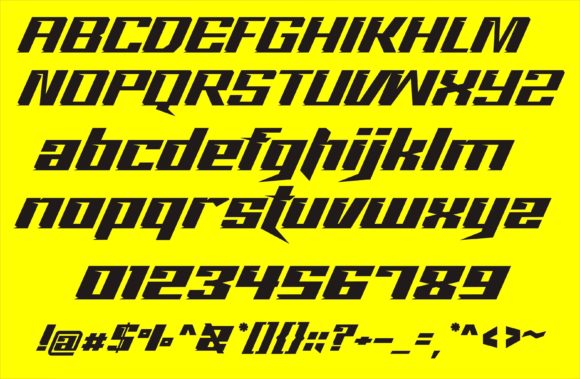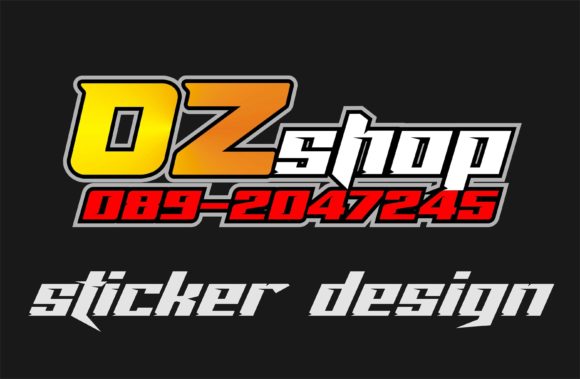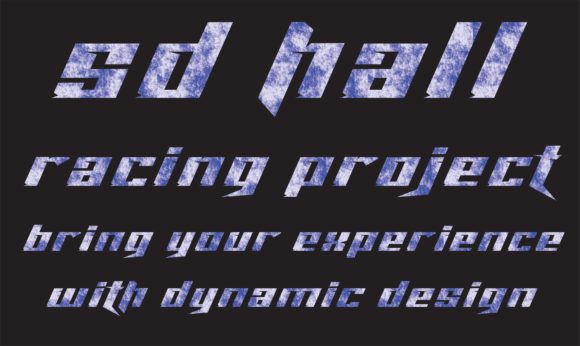
Introduction to Sd Hall Font
Have you ever found yourself staring at a blank canvas, eager to bring a creative project to life, but struggling to find the perfect font to set the tone? That was me, until I stumbled upon the Sd Hall Font. This cool, modern, and dynamic display font has been a game-changer for my designs, and I’m excited to share its awesomeness with you.
As a designer, you know how important it is to have a reliable design resource that can elevate your work and make it stand out. Sd Hall Font is that resource, offering endless variations to suit your unique style. Whether you’re working on a techno-themed project or a sports-related design, this font is sure to impress with its sleek and modern aesthetic.
- Features a transparent background, allowing for easy integration into various design contexts.
- Includes a range of glyphs and characters, making it suitable for various design applications.
- Offers a unique, modern aesthetic that can enhance the visual appeal of creative projects.
Honest Review: Sd Hall Font
As a designer, I’m always on the lookout for high-quality design resources that can elevate my creative projects. Recently, I came across the Sd Hall Font, and I’m excited to share my honest review with you.
However, there are a few limitations to consider: ⚠️ The font’s character set is relatively limited, which may not be ideal for projects that require a wide range of characters. Additionally, the font’s kerning can be a bit off at times, which may affect the overall readability of your design.
Overall, I’d say the Sd Hall Font is a solid addition to any designer’s toolkit. While it may not be perfect, its high quality and versatility make it a great resource for designers looking to add some flair to their creative projects.
- Highly versatile
- Limited character set
- Kerning issues
For optimal results, use Sd Hall Font in conjunction with a high-contrast background to ensure the text is easily readable. You can also experiment with different font sizes and styles to create a visually appealing design.
Sd Hall Font is commonly used in graphic design, digital art, and creative writing projects. Its transparent background makes it perfect for overlaying text on images or creating custom graphics.